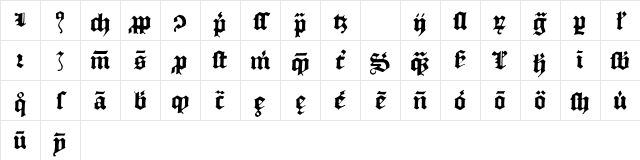
Historical Medium Free Font
Historical Medium
Design Context for Historical
Historical is a composed and adaptable typeface that performs quietly and consistently across a wide range of design contexts.